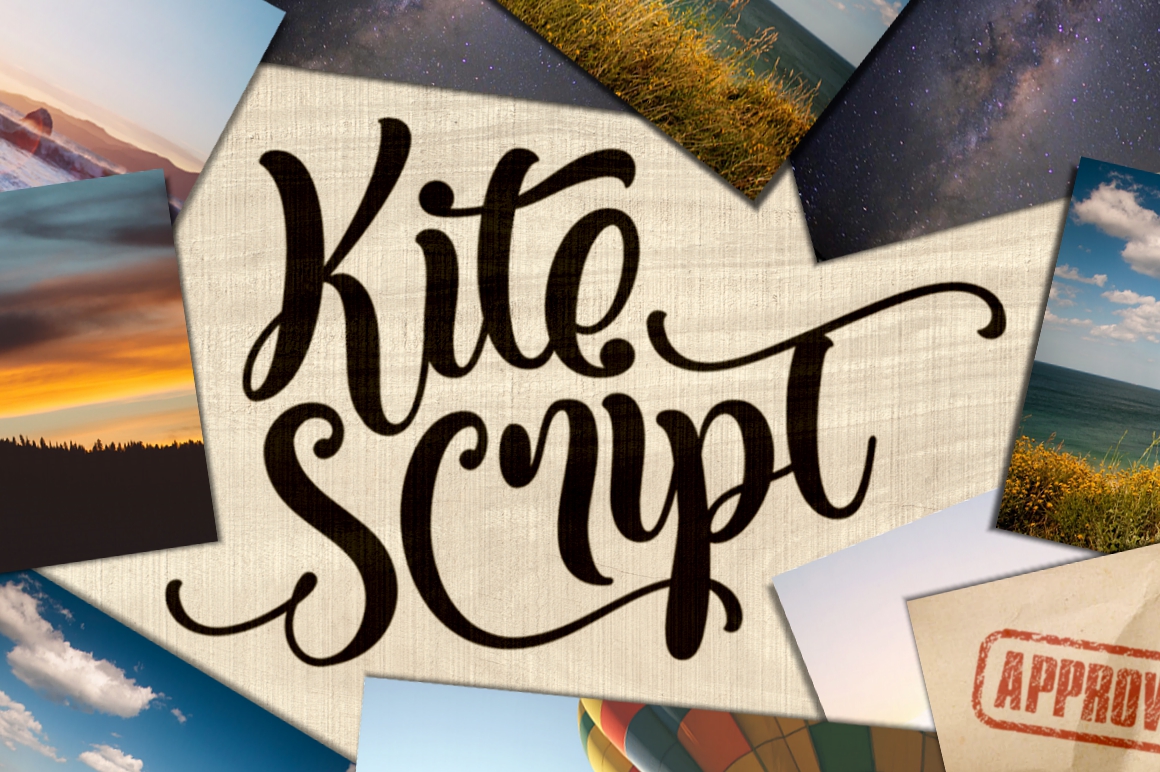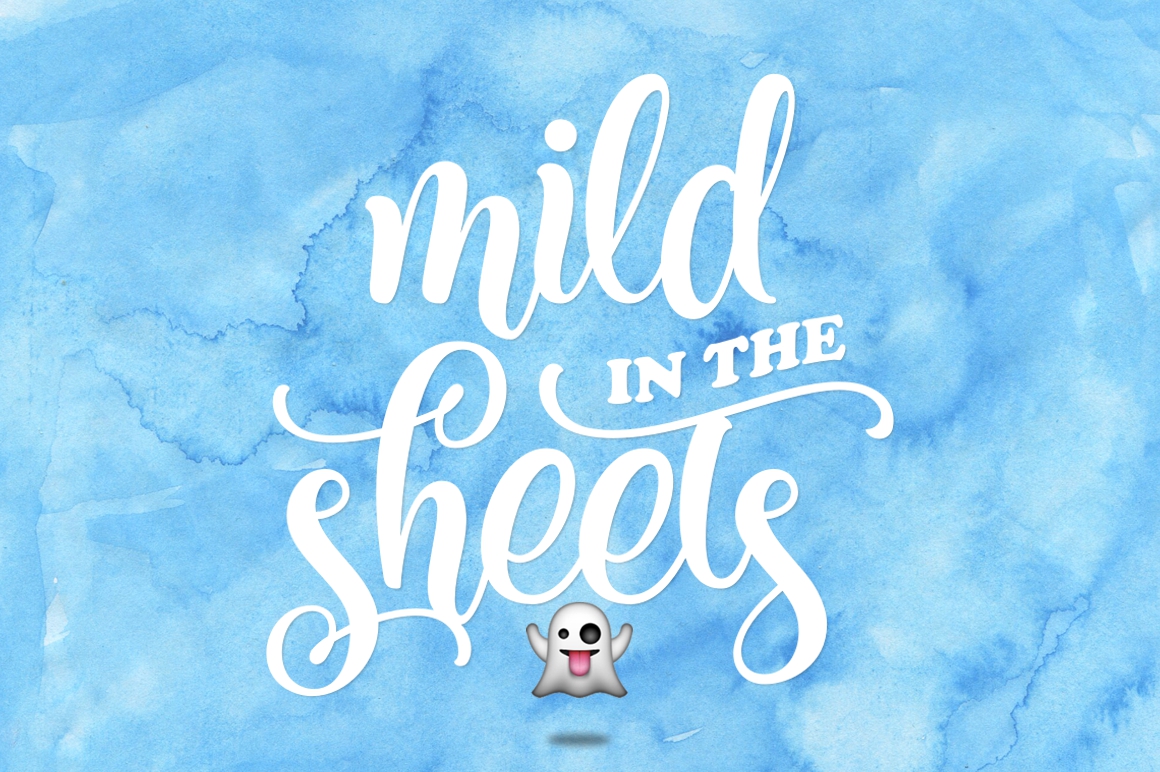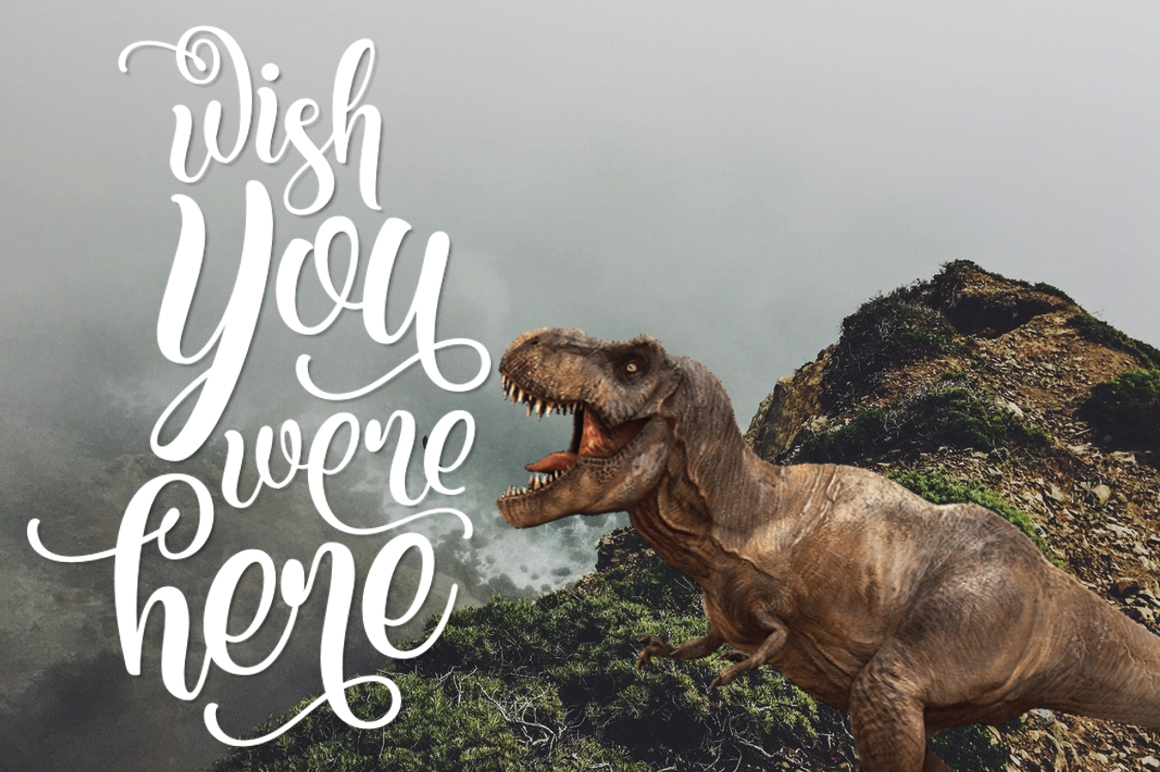
About Kite Script Font
Kite is a stunning script typeface that combined thick-thin lines, inconsistent height, loose-tight kerning and unique baseline combinations for natural handwritten feel. Easy and super playful to customize, suits best for almost all of your design projects that require an additional touch of elegance and class.